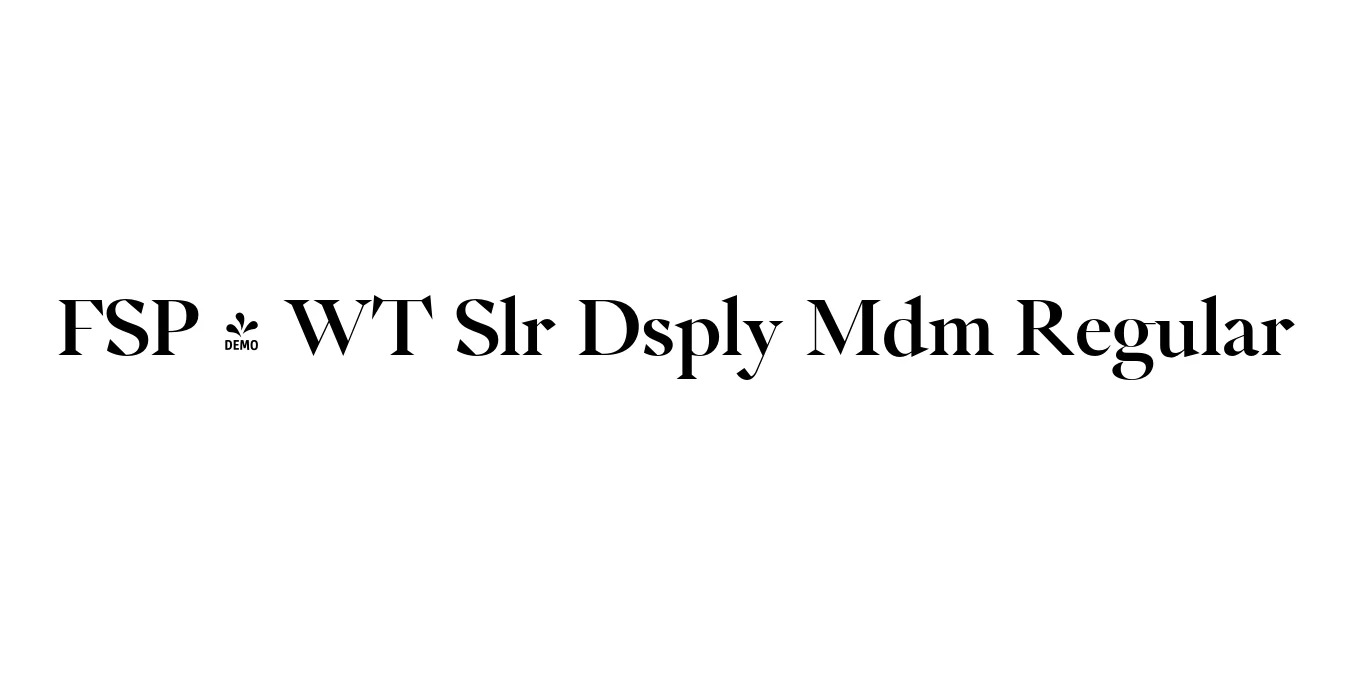
FSP - WT Slr Dsply Mdm Regular
Designed by Wounder Type
| Category | Display Serif |
| Designer | Wounder Type |
| Similar Fonts | Bodoni, Didot, WT Skrappa, Gazpacho, Ogg |
WT Solar Display Medium Regular is a sophisticated serif typeface developed by Wounder Type that pushes the boundaries of traditional display typography. It stands out in the contemporary design landscape through its distinctive blend of classic proportions and avant-garde geometric details. The font is characterized by its sharp, aggressive terminals and extreme high-contrast strokes that evoke a sense of celestial elegance and futuristic luxury. This specific weight, Medium, strikes a perfect balance between visual weight and refined elegance, making it an exceptional choice for designers seeking to elevate their visual storytelling.
The design philosophy behind WT Solar Display focuses on wide horizontal expansion and rhythmic verticality, providing a dramatic yet legible appearance in large display sizes. It has quickly become a staple in the high-fashion and luxury retail sectors, where its blend of vintage charm and modern precision allows for timeless branding. Whether applied to high-end print magazines or digital luxury platforms, it commands attention with its polished, professional aesthetic and unique rhythmic character.
FSP - WT Slr Dsply Mdm Regular Best Uses
Ideal for high-end luxury logos and visual brand identities.
Perfect for striking magazine headlines and large display titles.
Excellent for elegant hero sections and minimalist landing page headers.
Highly suitable for premium cosmetic, boutique, and luxury product packaging.